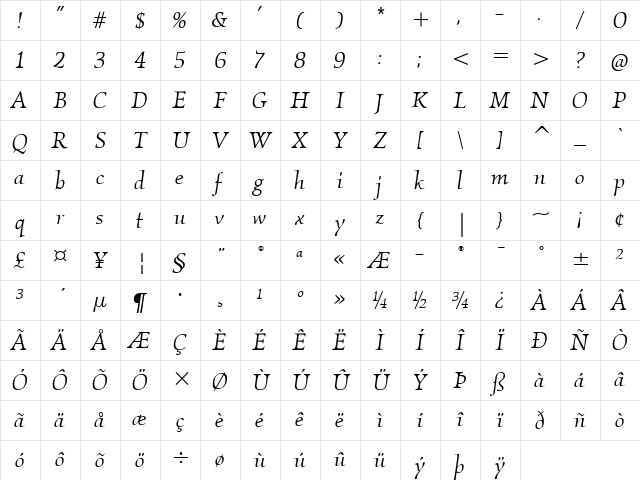
Kallos ITC Book Italic
Kallos ITC Book Family
Design Context for Kallos ITC Book
Kallos ITC Book is a composed and adaptable typeface that performs quietly and consistently across a wide range of design contexts. The slanted form adds forward momentum and visual energy.
Pro Tip: Use Kallos ITC Book for emphasis, pull quotes, and subheadings where its slanted energy can add rhythm to the layout.